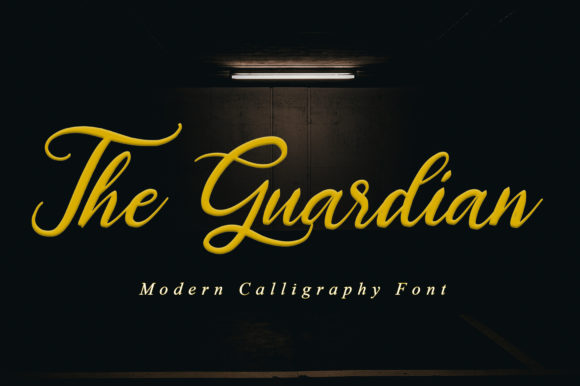
Step into a world of allure and sophistication with The Guardian Font, a script masterpiece that will cast a spell on your designs. This enchanting font family, brought to life by the gifted Najmustsaqib.creator, is a symphony of graceful lines and captivating curves, crafted to make your creations shine.
With its delicate strokes and playful characters, The Guardian Font dances across the baseline, adding a touch of whimsy and magic to every word. Let your imagination soar as you explore the endless possibilities of this font, designed to elevate your projects to new heights of artistry.
Immerse yourself in the allure of The Guardian Font and discover a treasure trove of creative opportunities. Whether you're designing logos, branding, websites, or social media posts, this font will transform your work into visual masterpieces. Its versatility knows no bounds, making it the perfect choice for fashion, lifestyle, beauty, and beyond.
Unleash the power of The Guardian Font and watch your designs come alive. Its elegant charm will captivate your audience, leaving them spellbound by your creations. Experience the transformative power of this font and elevate your projects to new levels of sophistication and allure.